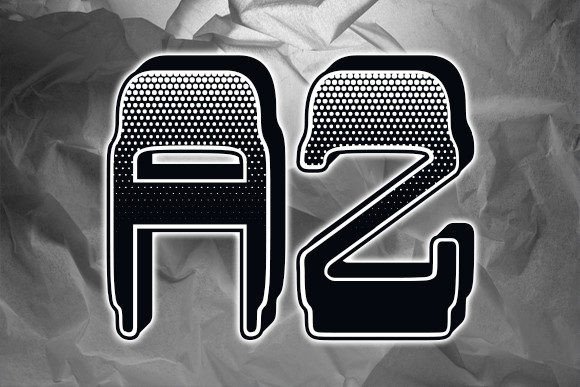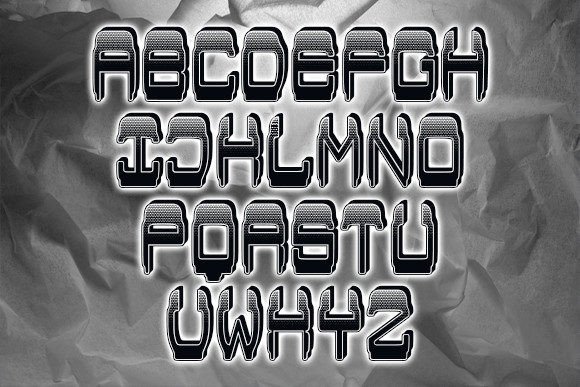
Introduction to Pliez Font
Have you ever stared at a blank canvas, waiting for inspiration to strike? You’re not alone. As creatives, we’ve all been there – searching for the perfect design element to bring our ideas to life. For designers, the right font can be the difference between a good design and a great one. That’s why we’re excited to introduce you to the stylish Pliez Font, a free download that’s about to revolutionize your creative project.
With its unique blend of elegance and sophistication, Pliez Font is the perfect addition to any design resource. Whether you’re creating posters, flyers, or t-shirts, this high-quality font is sure to make your designs stand out. Plus, with a transparent background, you can easily overlay it with other elements to create a visually striking effect.
Key Features of Pliez Font
Honest Review: Pliez Font
As a designer, I’m always on the lookout for high-quality resources to enhance my creative projects. Recently, I stumbled upon the Pliez Font, and I’m excited to share my honest review with you.
- ✨ Unique and elegant design style that sets it apart from other fonts
- ✨ Smooth and clear typography that makes it perfect for digital use
- ✨ Suitable for a wide range of creative projects, from logos to brochures
- ⚠️ Limited font variations, which may not be ideal for designers who need more options
- ⚠️ Some users may find the font too elegant or sophisticated for certain projects
Overall, I’m impressed with the Pliez Font. Its unique design style and high quality make it a great addition to any designer’s toolkit. While it may have some limitations, I believe it’s a fantastic resource for designers looking for a free, high-quality font. I’d definitely recommend it for your next creative project.
Tips for Getting the Most Out of Pliez Font
For the best results, use Pliez Font on a high-quality design resource, such as a business card or brochure. This font is perfect for creative projects that require a unique and stylish touch. Remember to download the font in a format that supports transparent backgrounds for the best results.
Pliez Font is ideal for use in various design projects, including:
- Business cards and brochures
- Marketing materials and advertisements
- Website headers and footers
- Presentations and reports
Alternatives to Pliez Font
How it compares to Pliez Font: Montserrat is more modern and has a more geometric feel, whereas Pliez Font has a more vintage and artistic style.